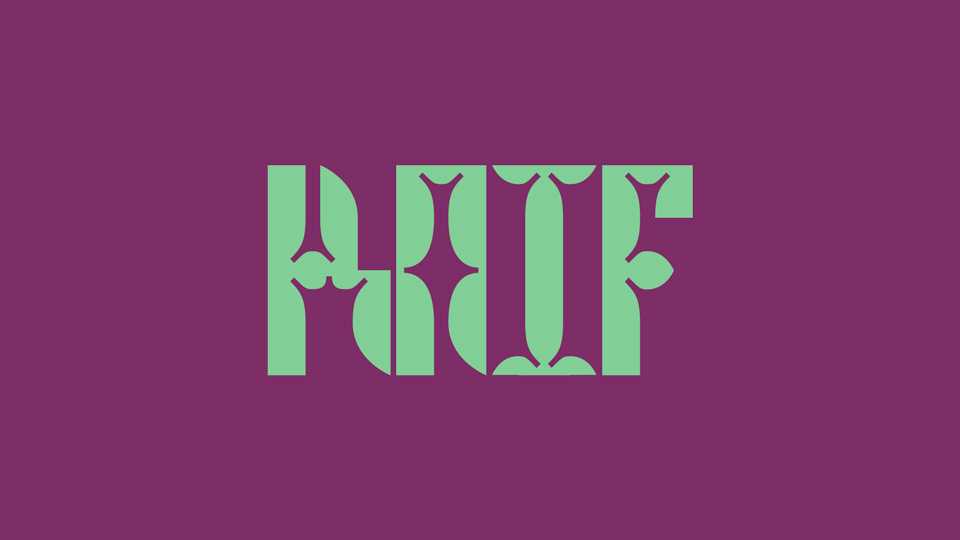
Knif Display Font › Fontesk
Download Knif Display font, a decorative modular typeface based on the grid. With its unique look Knif Display is perfect to create ornamental typographic compositions.
Designer: Bastien Tessanne